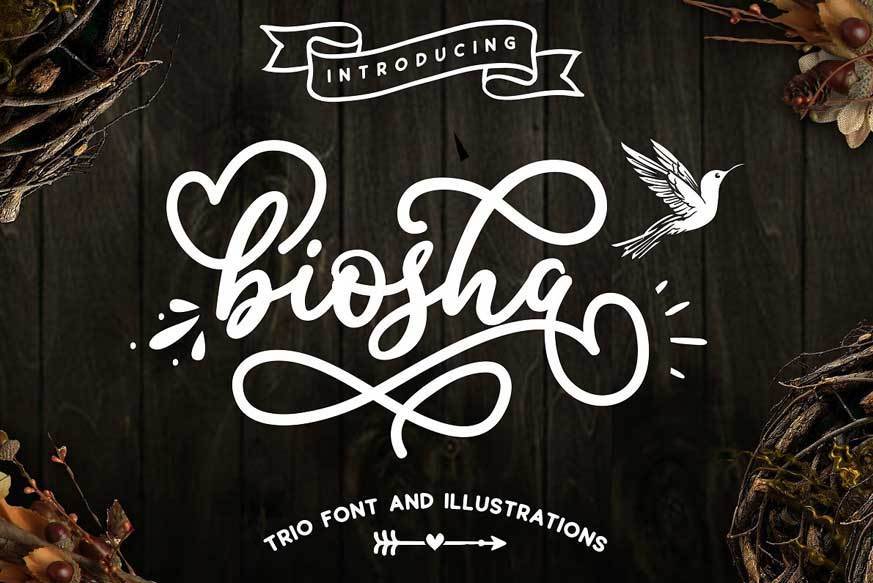
Biosha is a script font with lots of alternative glyphs plus two complementary fonts and lots of cliparts in font format as well as EPS, PNG and SVG.